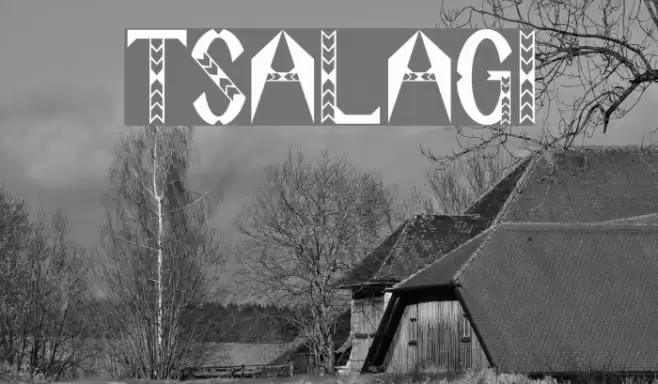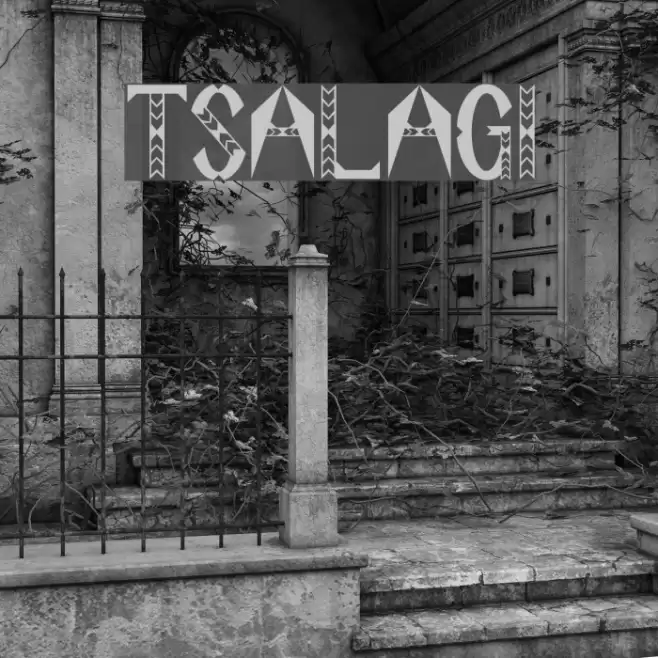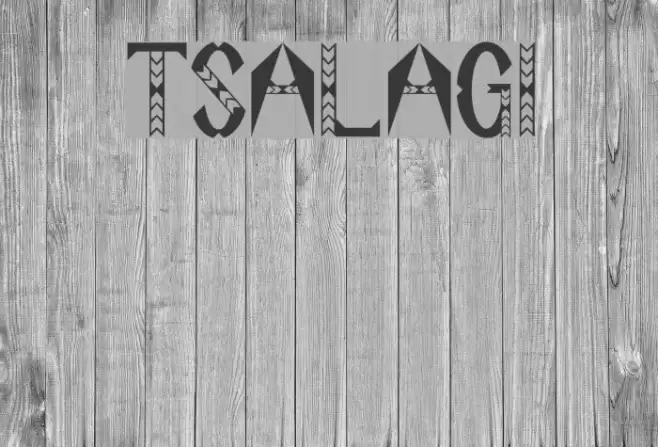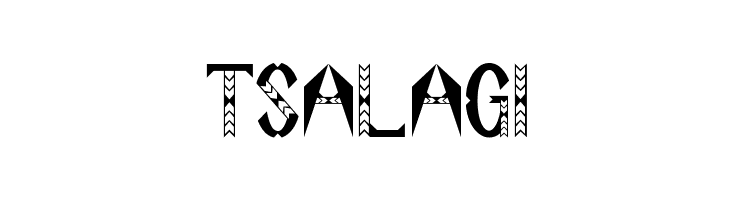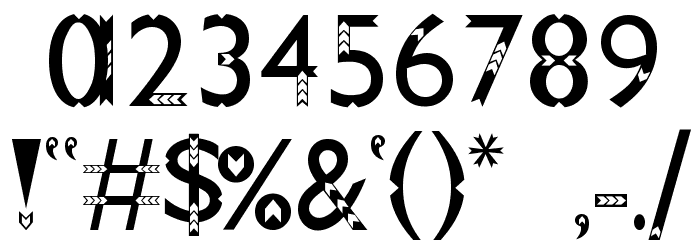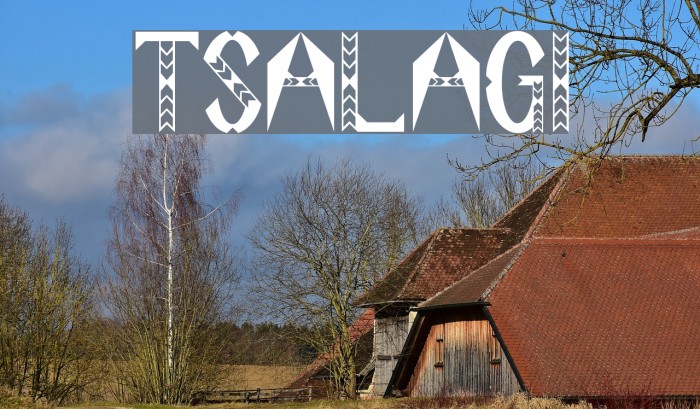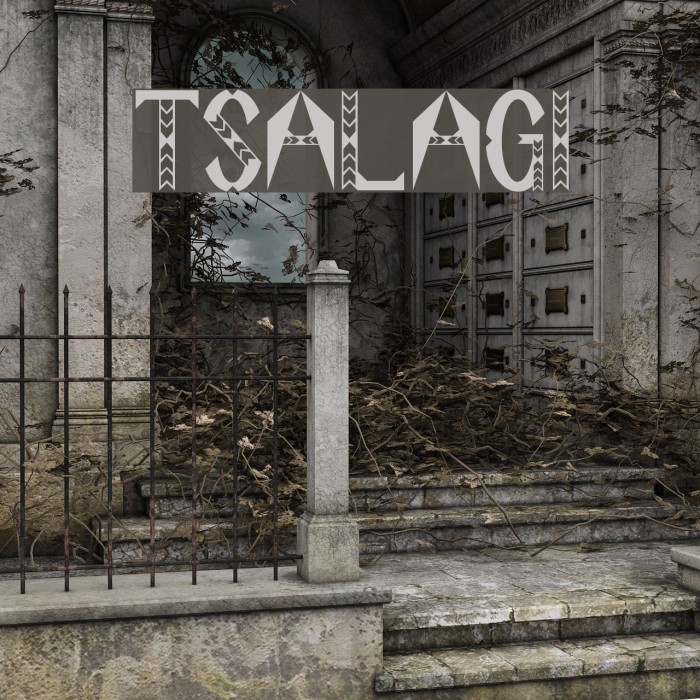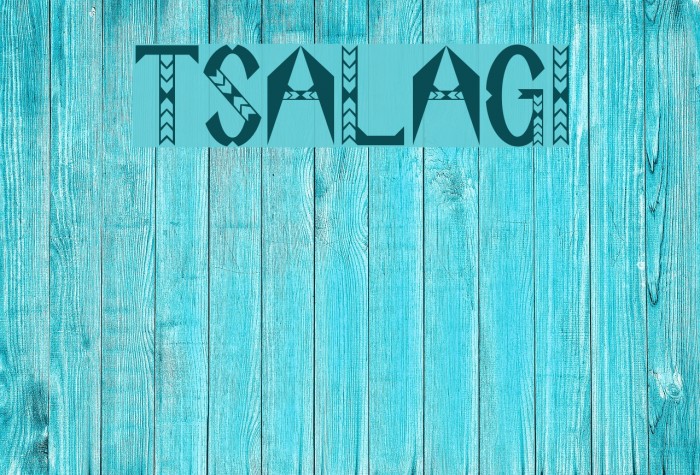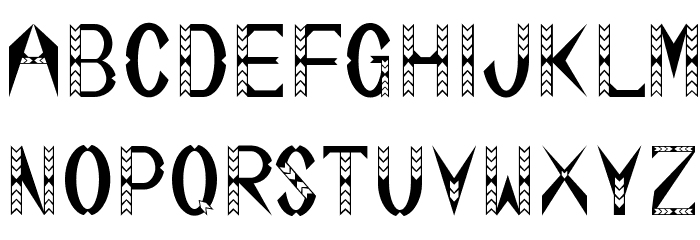
Tsalagi Font
Tsalagi Description
This font features a bold and decorative style with intricate patterns inside each character, resembling traditional motifs. The uppercase and lowercase letters maintain a consistent design, with sharp angles and geometric shapes that create a striking visual impact. The numbers and special characters follow the same decorative theme, ensuring uniformity across all glyphs. The font's unique design makes it ideal for projects that require a cultural or artistic touch, offering a blend of modern aesthetics with traditional influences.
A bold, decorative font with intricate, geometric patterns from Decorative fonts.
- Proposed Projects: Ideal for cultural event posters, artistic branding, and decorative signage.